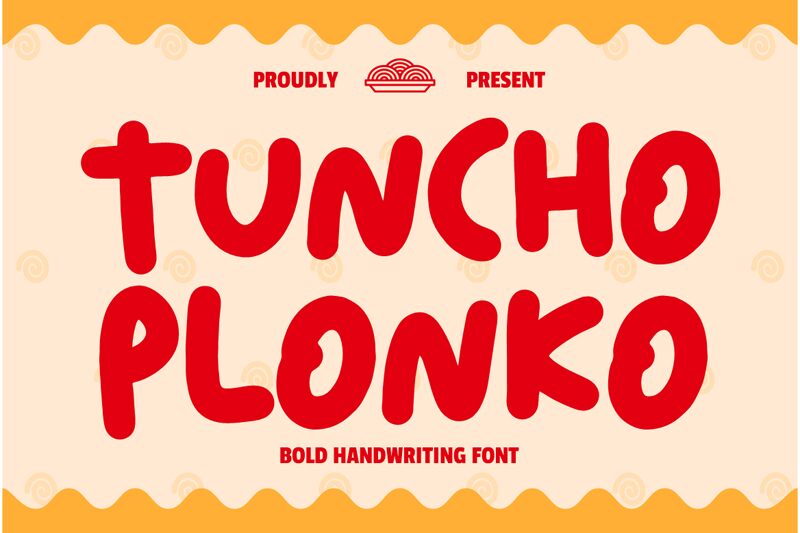
Tuncho Plonko font family by PutraCetol Studio is a free font family with a playful comic style. Designed to be informal and friendly, this modern typeface offers an approachable and lively look. Best of all, its dynamic and casual letters share a round shaping that’s rarely found elsewhere. Overall, its extroverted characters give the font family notable readability when used in small sizes, and a highly energetic appearance at display size.
The 2 font styles provide all the tools designers need to create a playful atmosphere in layouts of all kinds. Use it for logos, printed advertisements, social media posts, cards, stickers, or book covers. Alternatively, it also works for comics, short videos, labels, or signages. Overall, this item is versatile and can fit many contexts where a friendly atmosphere is required.